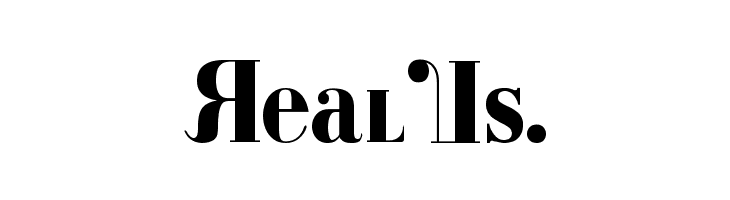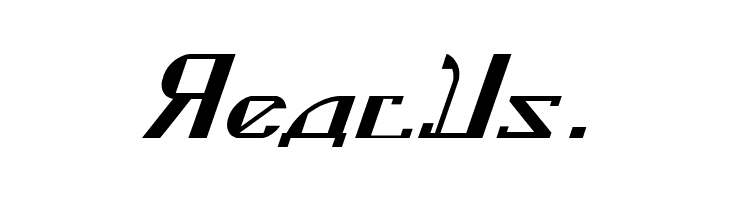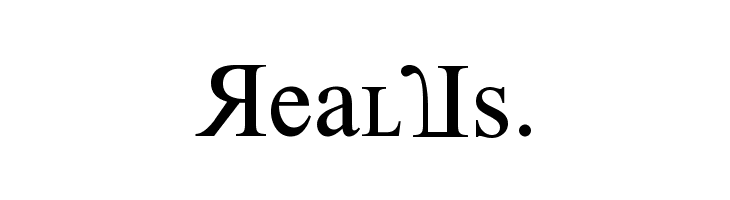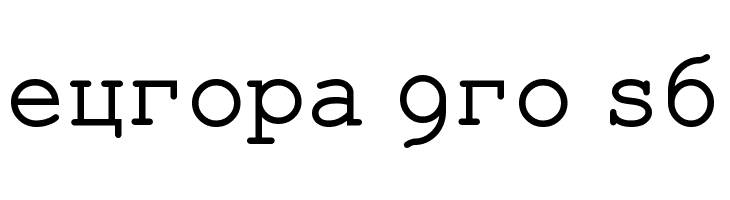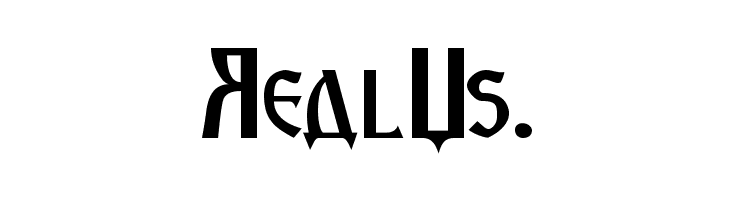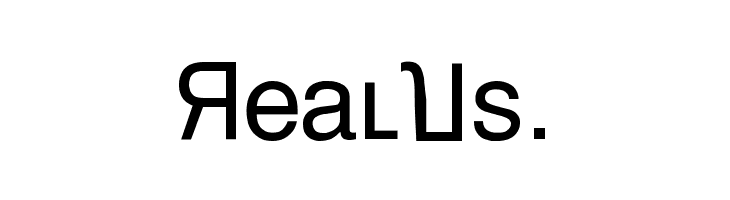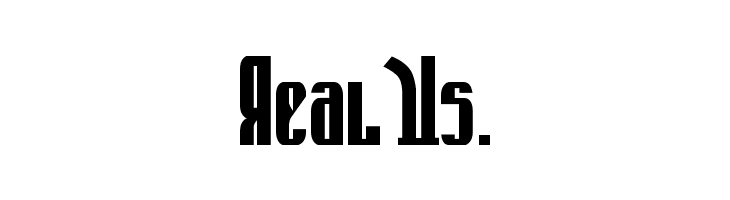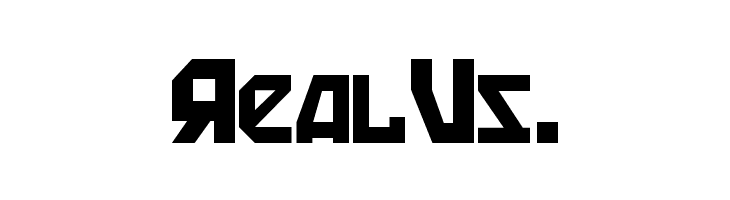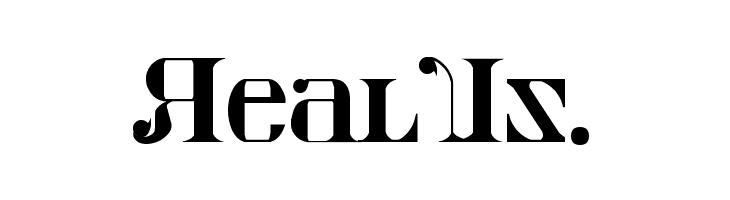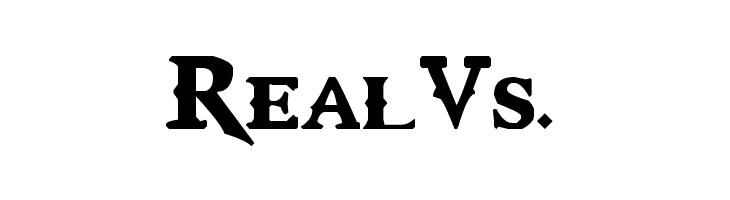
A bold, geometric font with a modern yet traditional flair.
A bold, geometric font with a Soviet-era aesthetic and strong, angular lines.
A bold, high-contrast font with ornate serifs and dramatic flourishes.
A bold, geometric font with tall, narrow characters and a strong, impactful presence.
A bold, decorative font with sharp serifs and intricate detailing, inspired by traditional Slavic scripts.
A bold, geometric font with sharp angles and a strong, industrial feel.
A bold, monospaced font with geometric shapes and uniform spacing.
A modern, geometric font with clean lines and a structured appearance.
An elegant serif font with high contrast and Cyrillic influences.
A bold, italic font with angular, Soviet-inspired design.
A bold, high-contrast font with sharp angles and distinct serifs.
An artistic and decorative font with intricate loops and swirls.
An artistic, decorative font with intricate swirls and loops.
A playful, bold, and whimsical font with hand-drawn, irregular strokes.
A whimsical, bold font with playful, star-like embellishments.
A bold, geometric font with sharp angles and consistent stroke width.
A geometric, minimalist font with thin, angular strokes and a modern aesthetic.